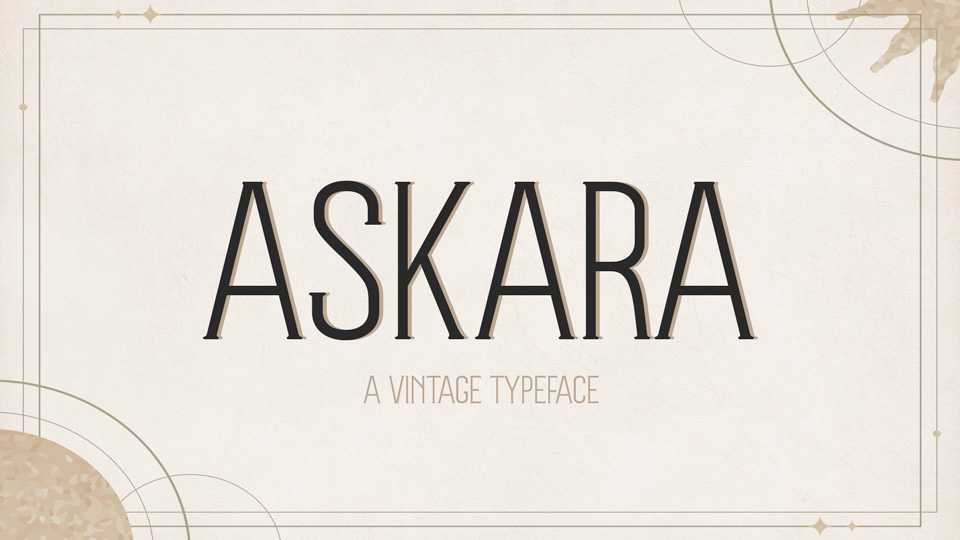
Downoad AT Askara font, a vintage serif typeface. AT Askara can be used to make things even better, such as documents, packaging labels, brochures, sign paintings, badges, certificates, placards, and so on.